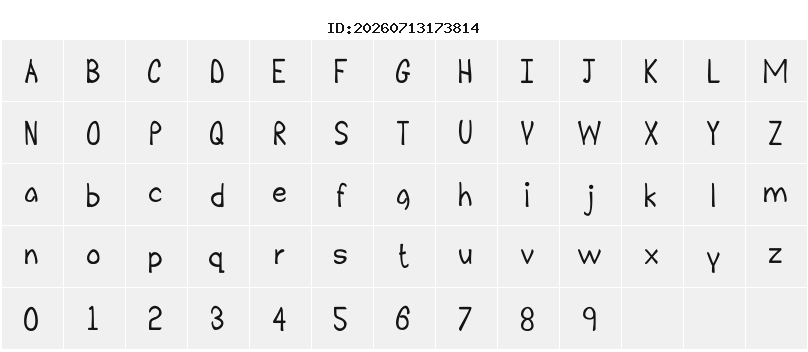
Balcony 101 Preview
• Font Name: Balcony 101
• Full Font Name: Balcony 101
• Designer: Font designed for Fonts101.com Exclusively
About Balcony 101.ttf
Balcony 101.ttf is a modern, elegant sans-serif font designed for ultimate readability and visual harmony. Perfect for branding, headlines, web design, and print materials.